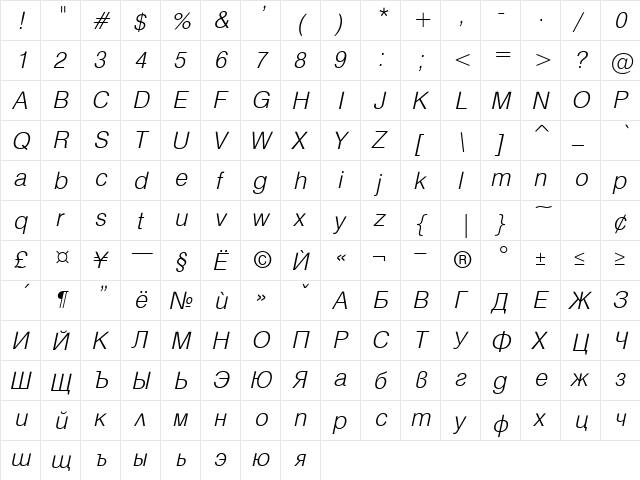
HebarLight Italic Font Preview
HebarLight Italic
HebarLight Italic Font Details
Design Context for HebarLight Typeface
HebarLight offers clean, dependable letterforms without strong stylistic allegiance, making it a practical choice for designers who need flexibility. Its italic angle brings a sense of urgency and motion to the letterforms. The delicate stroke weight brings airiness and refinement to layouts.
Pro Tip: Try HebarLight for annotation and caption copy alongside an upright companion — the contrast in angle creates a dynamic but ordered typographic system.